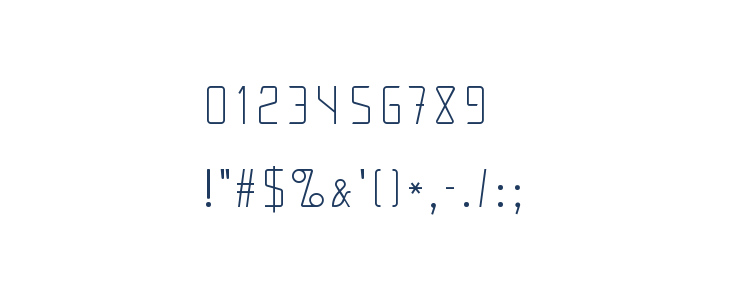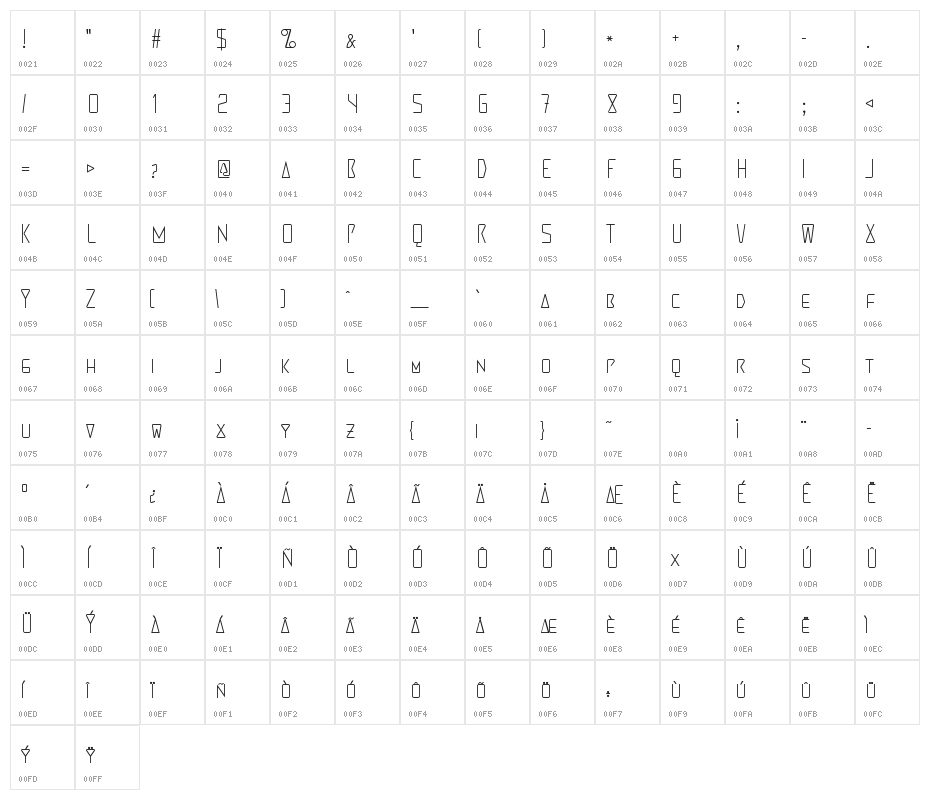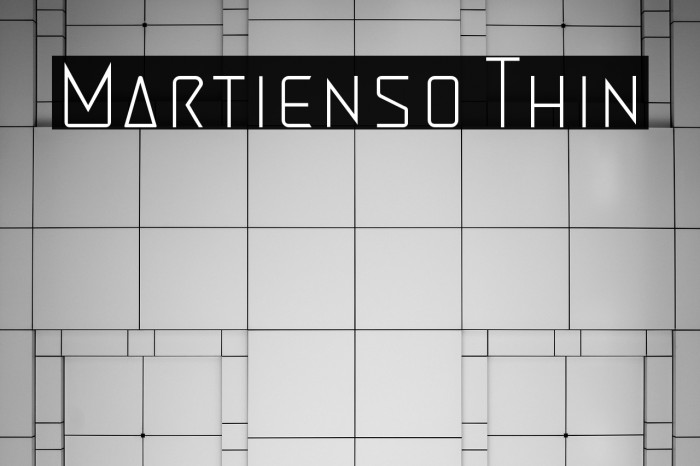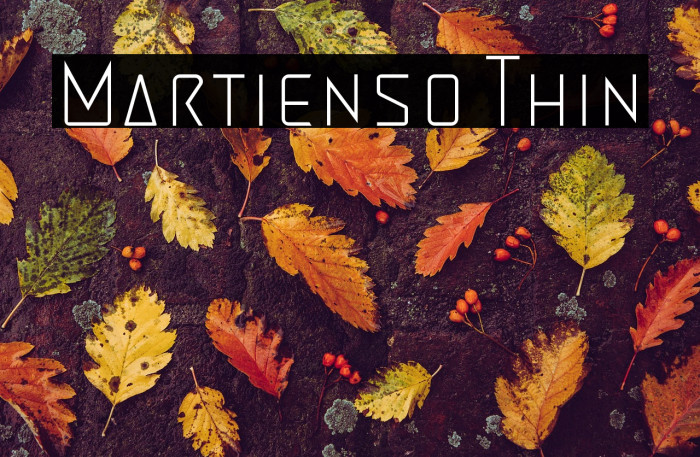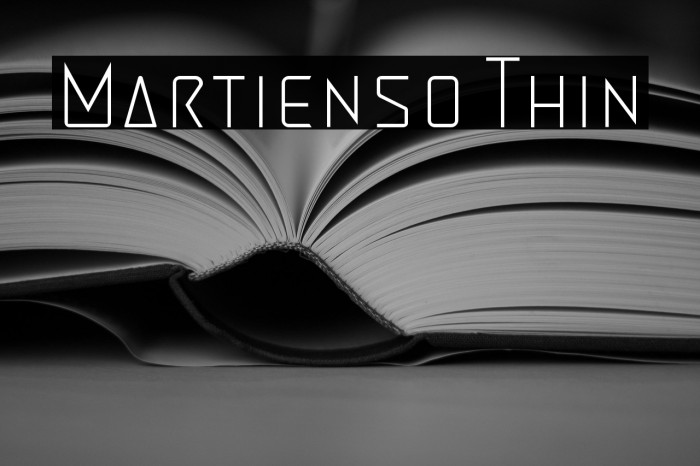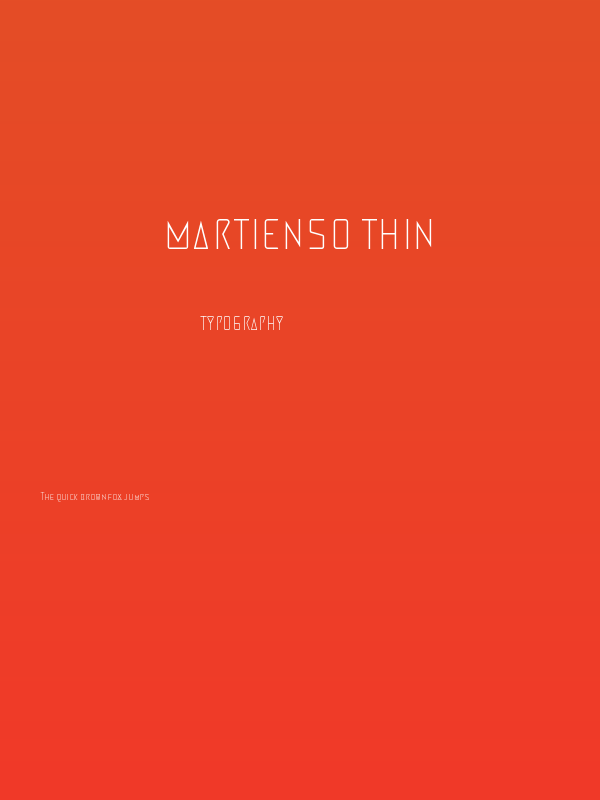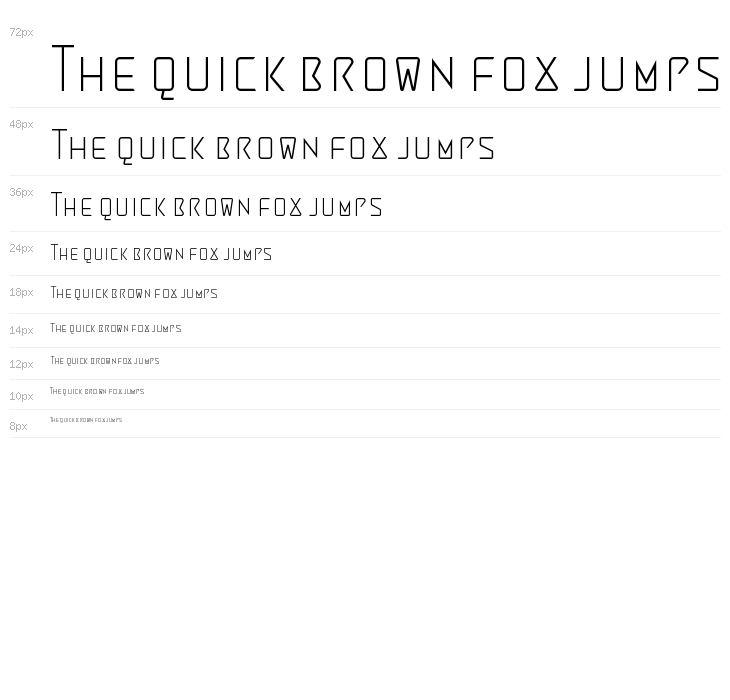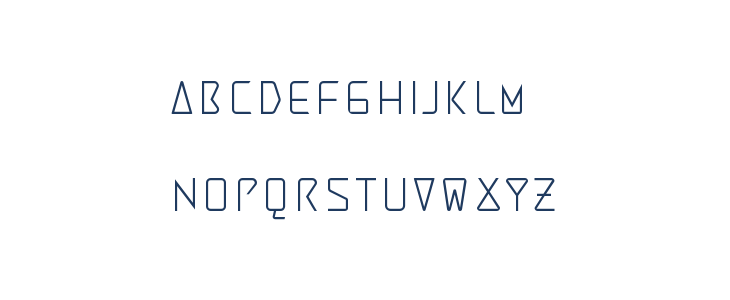
Martienso Thin Font
Martienso Thin Description
This font features a geometric and futuristic design, characterized by its angular and minimalist letterforms. The uppercase and lowercase letters share a consistent style, with sharp edges and a uniform line weight that gives it a clean and modern appearance. The numerals and special characters maintain this geometric theme, making the font suitable for tech-oriented or avant-garde projects. Its distinct style is both eye-catching and versatile, allowing for creative applications in various design contexts.
| Proposed Projects | Ideal for tech branding, sci-fi posters, modern art projects, and digital interfaces. |